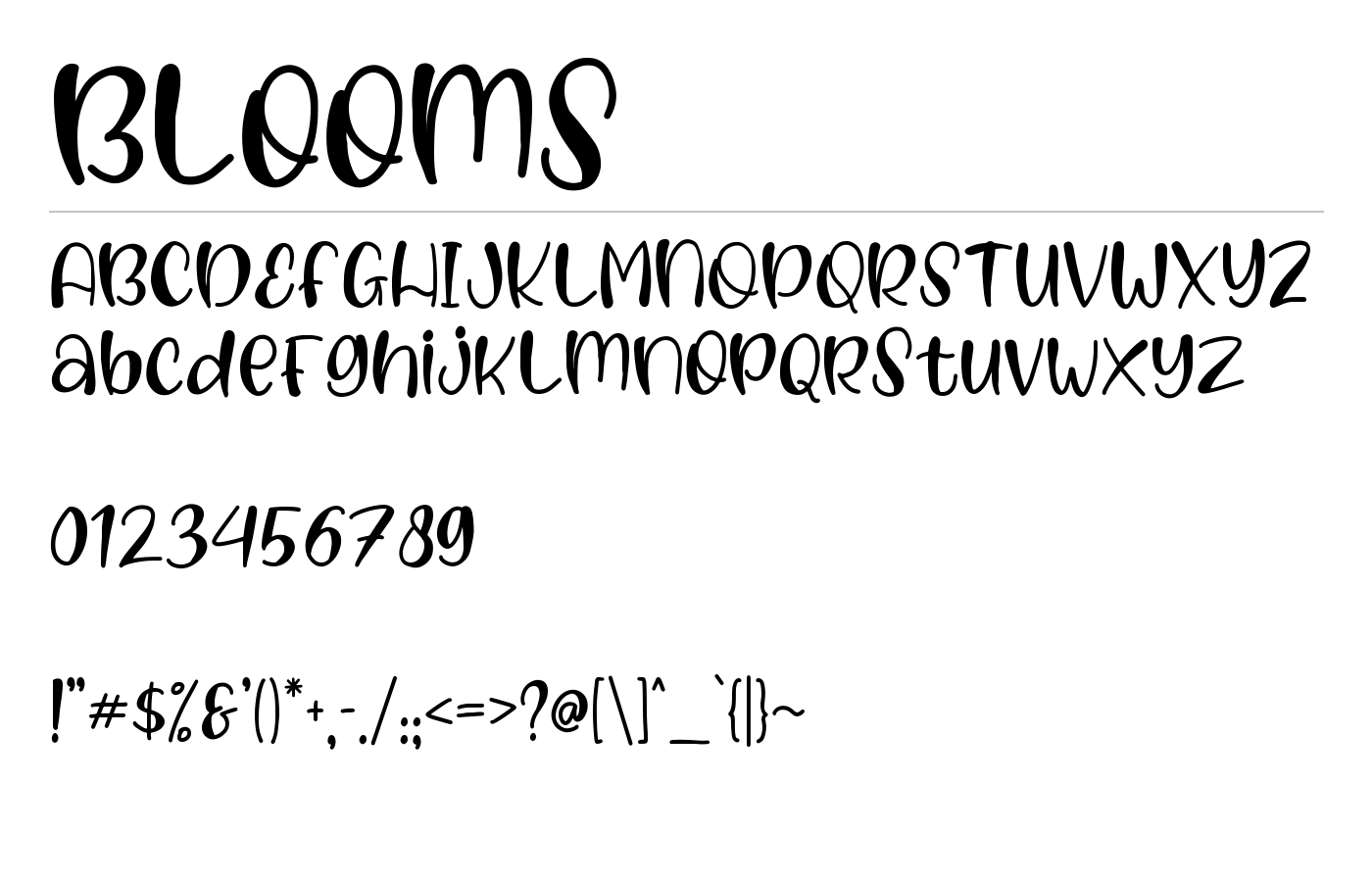
Blooms is a playful and casual handwritten font that features smooth, rounded strokes with slight variations in thickness, giving it a lively and friendly feel. Its tall, slightly narrow letterforms with a mix of single and double-story characters create a whimsical yet legible style, making it perfect for informal branding, invitations, and creative projects that want to convey warmth and approachability. This font works best in headlines or short texts where a fun and personal touch is desired.
Blooms Font
About Blooms Font